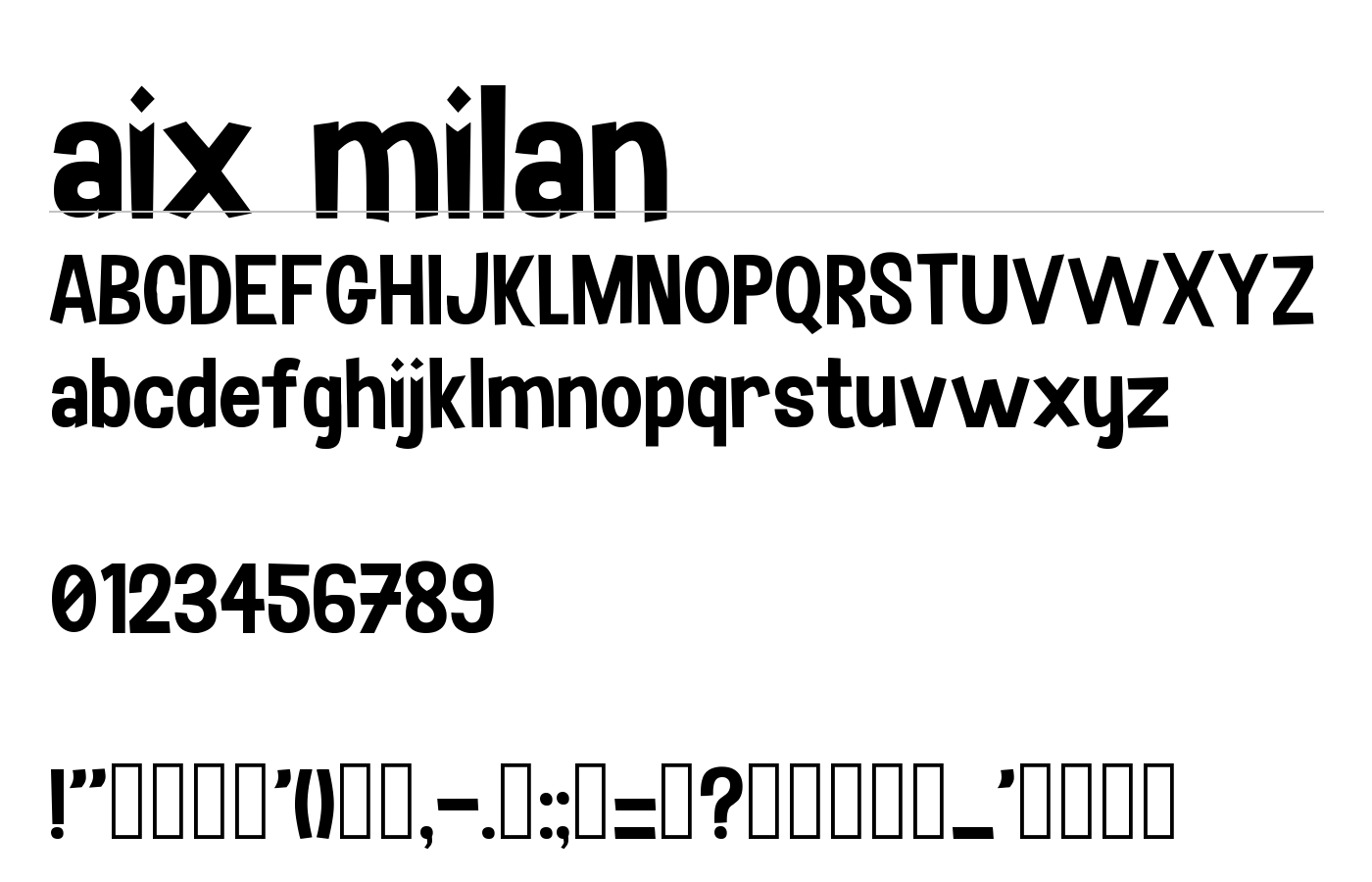
Aix Milan is a bold, condensed sans-serif font with a playful, slightly irregular character that adds personality and charm. Its upright, geometric letterforms with uneven strokes give it a hand-crafted, informal feel, making it ideal for creative branding, eye-catching headlines, and packaging where a friendly, approachable tone is desired. This font works well in designs that aim to stand out with a modern yet quirky style.
aix milan Font
About aix milan Font